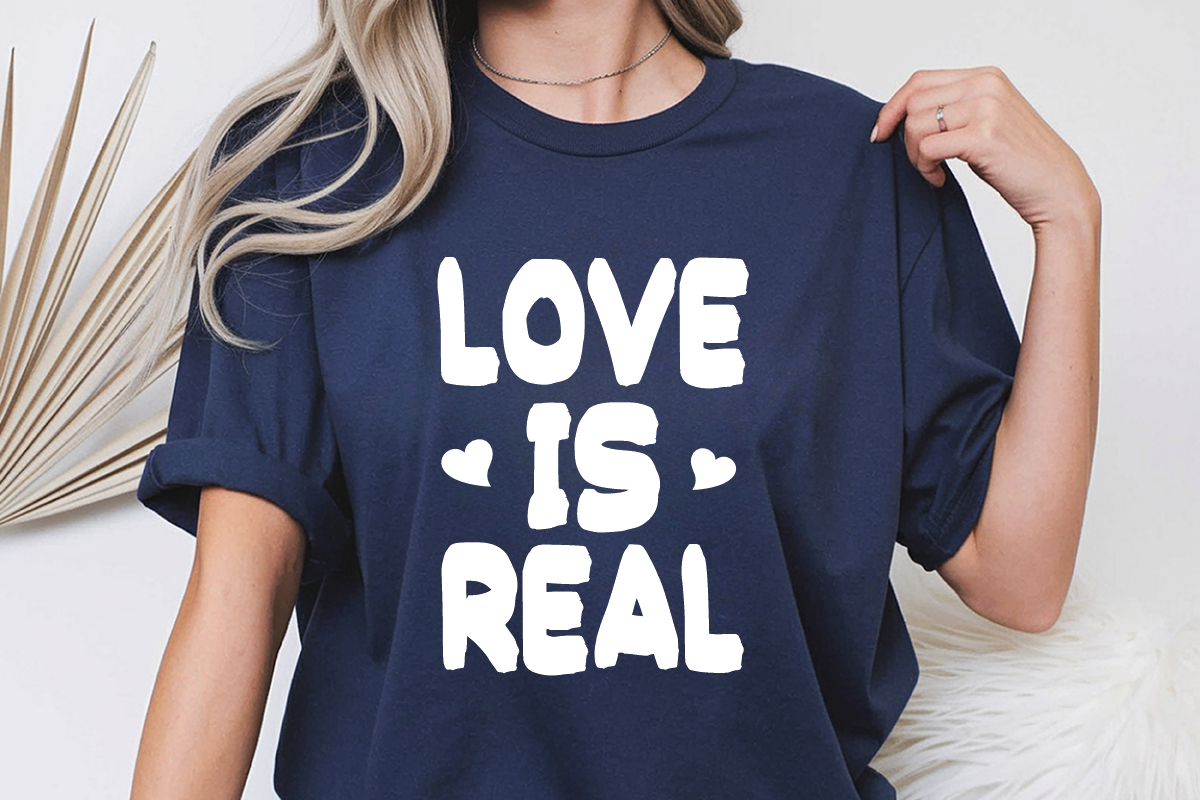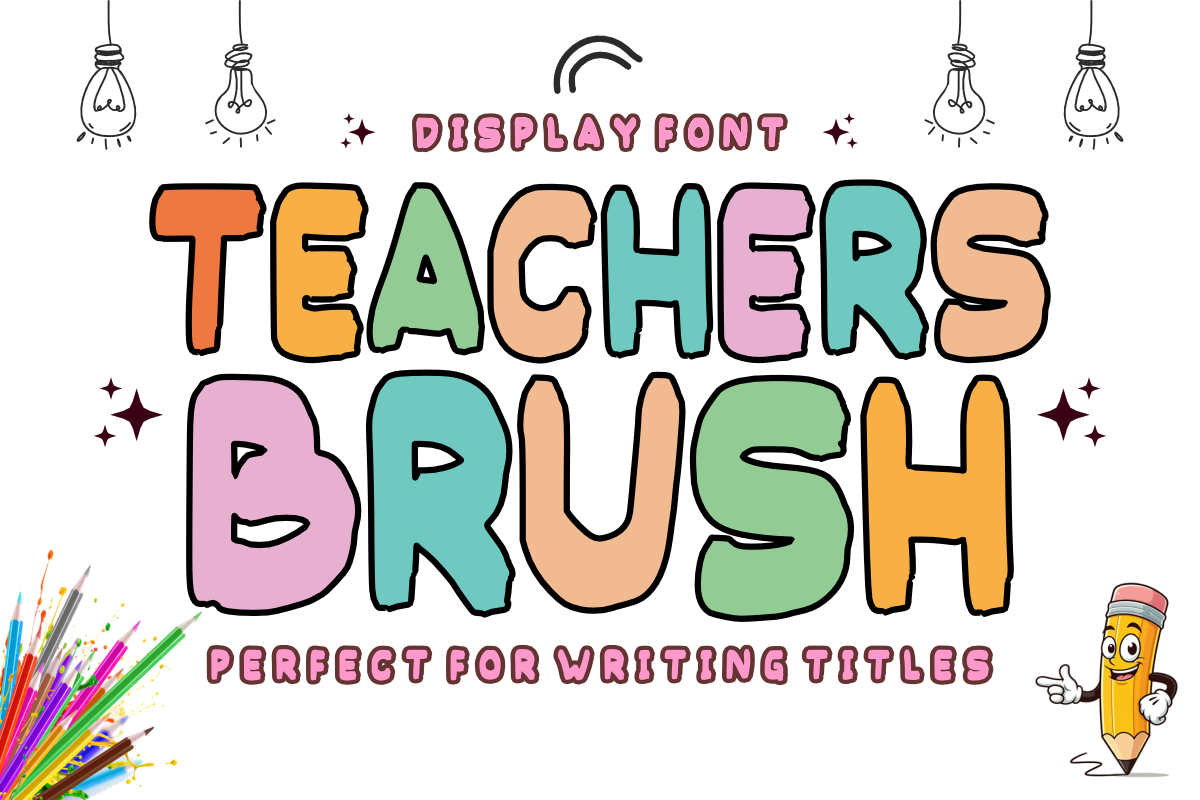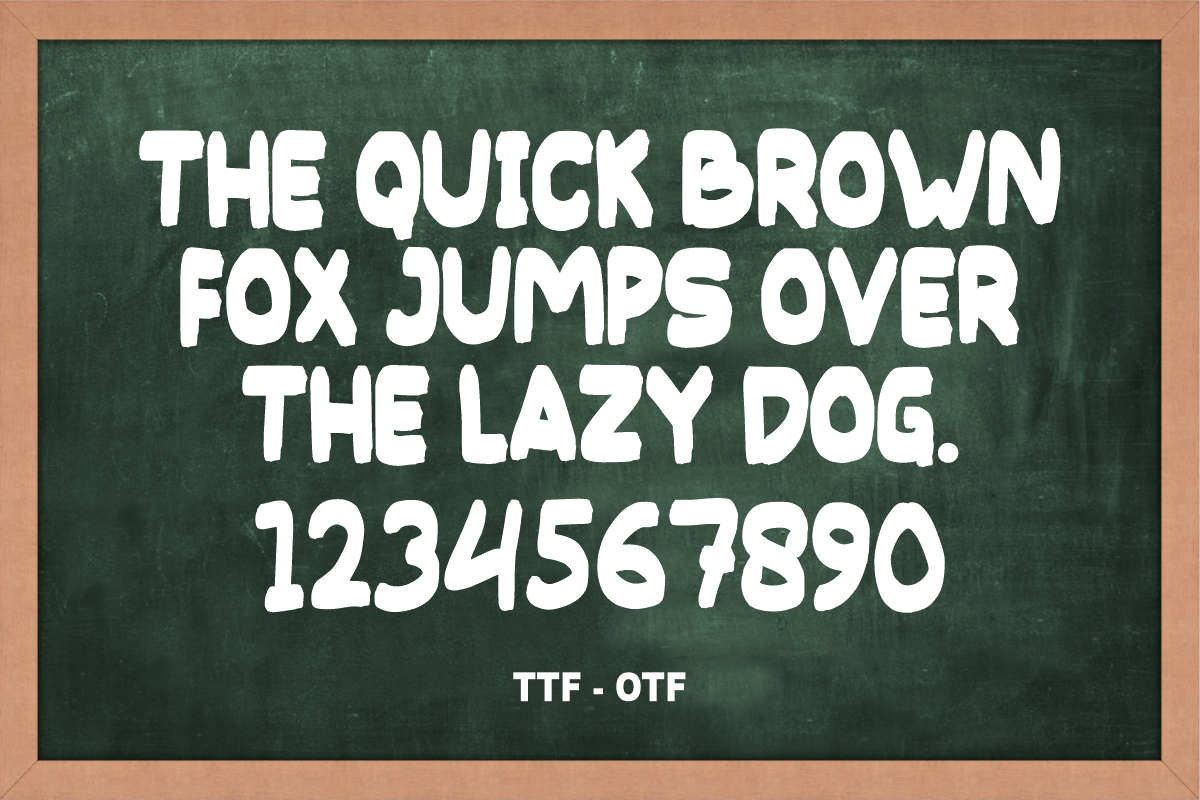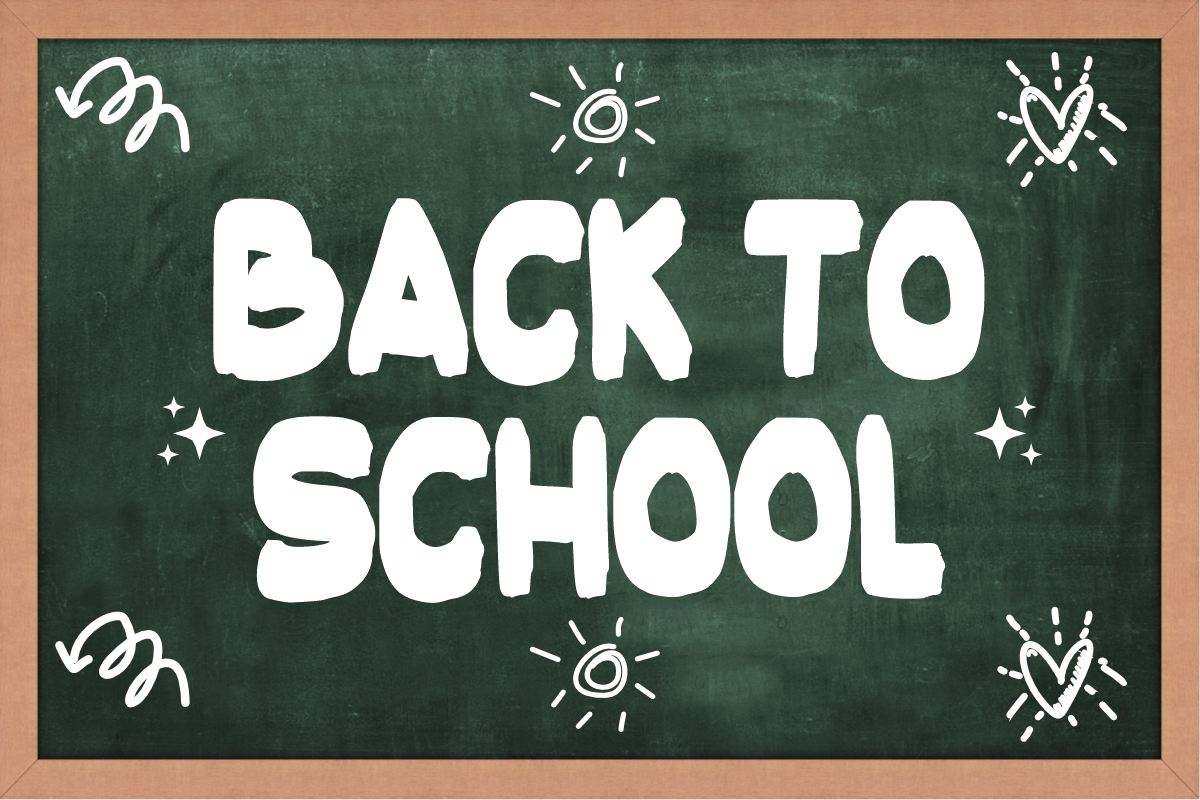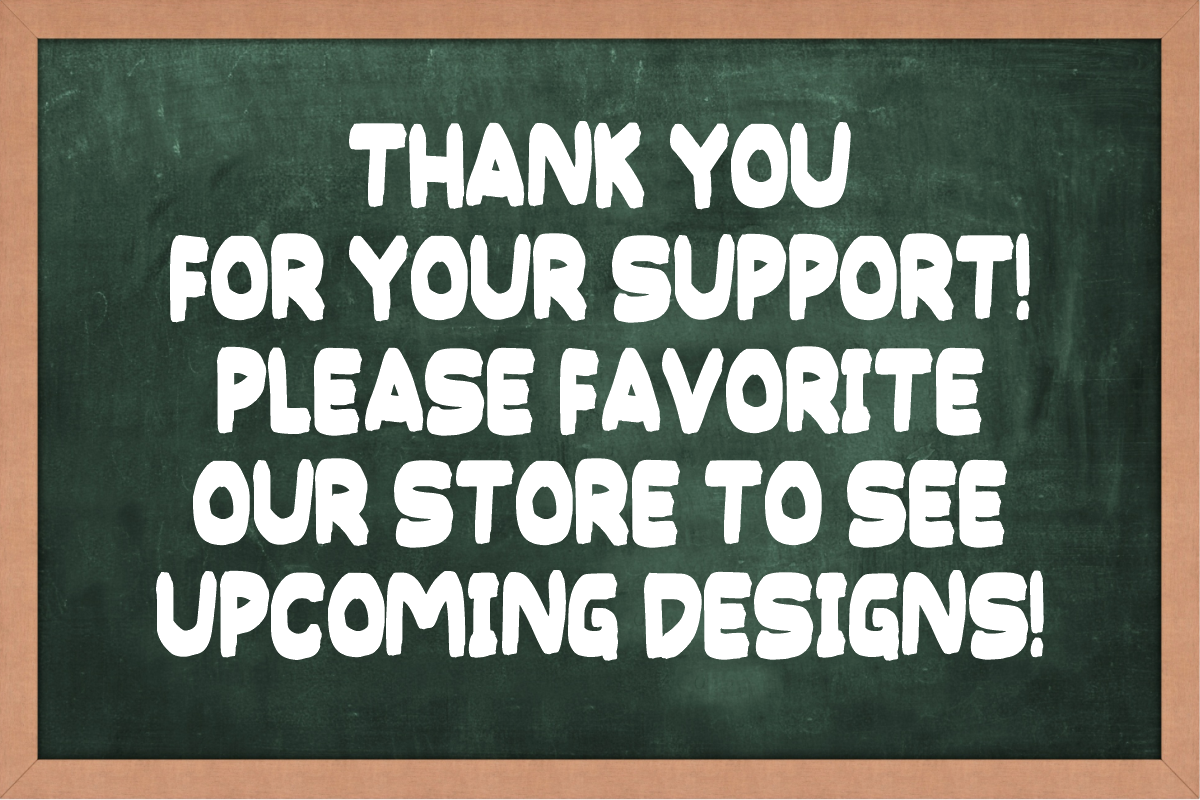
Teachers Brush - Display Font
🍎 Teachers Brush – Playful & Bold Education Font ✨
Make every lesson pop with the ultimate classroom display font!
Teachers Brush is a chunky, high-energy display font designed to capture the authentic feel of a hand-painted brush stroke. With its bold silhouette and friendly, irregular edges, this font brings a warm, approachable, and creative vibe to any project. It is specifically crafted for maximum legibility, making it a "must-have" for educators, parents, and designers working on children’s brands.
Authentic Brush Texture: Slightly organic edges give it a genuine handmade look that feels more personal than standard digital fonts.
Maximum Impact: Its heavy weight makes it perfect for headlines that need to grab attention instantly.
Craft-Ready Outlines: Designed with smooth enough paths to be a dream for Cricut, Silhouette, and other cutting machine users.
📚 School & Education: Classroom posters, flashcards, worksheets, and bulletin boards.
📺 Content Creation: Fun YouTube thumbnails, playful blog headers, and social media quotes.
👕 Merchandise & Apparel: Kids' T-shirt designs, nursery wall art, and custom stickers.
🎂 Celebrations: Birthday invitations, party banners, and festive greeting cards.
🧸 Branding: Playful logos for toy stores, daycare centers, or children’s book covers.
Character Set: Bold Uppercase Letters (A-Z).
Numbers & Symbols: Complete numerals (0-9) and basic punctuation.